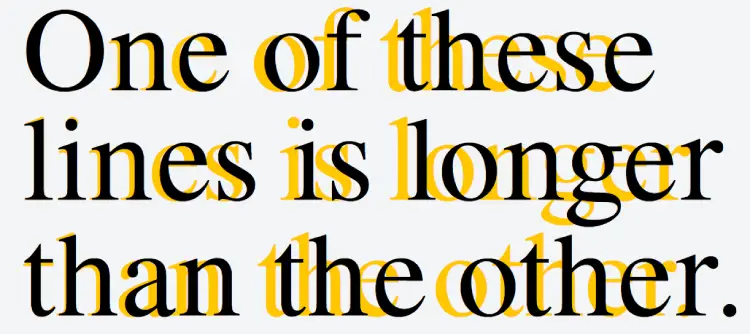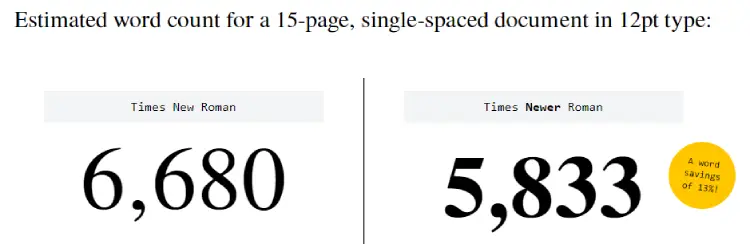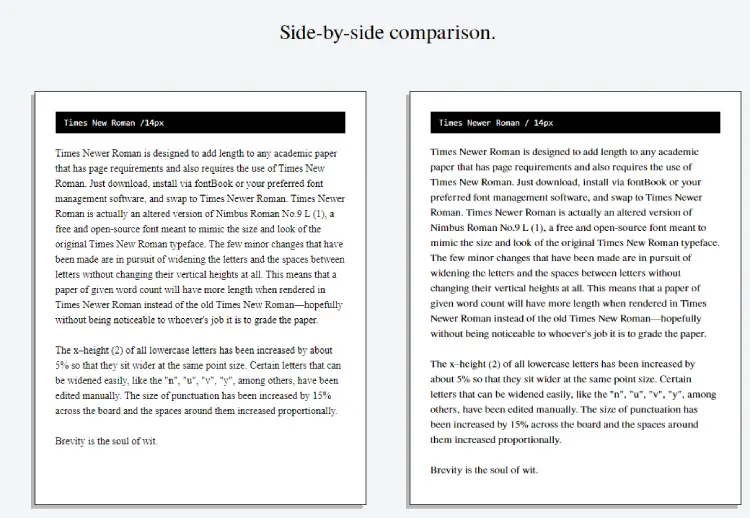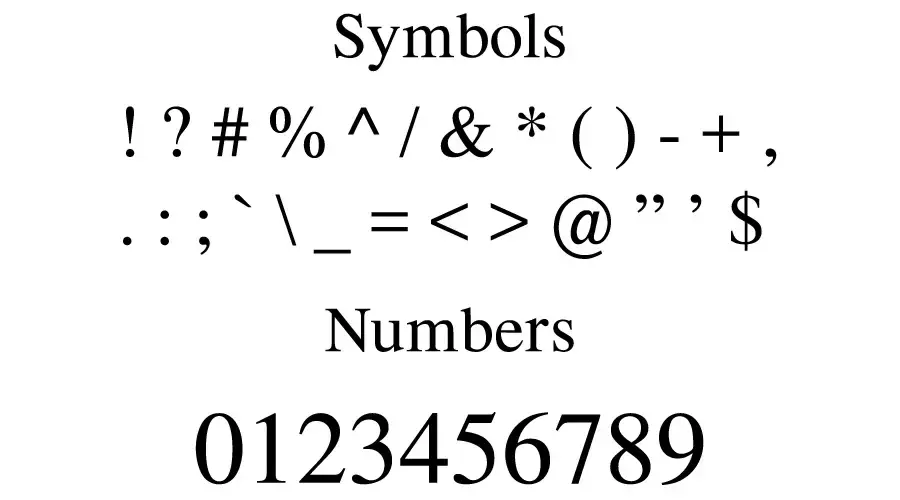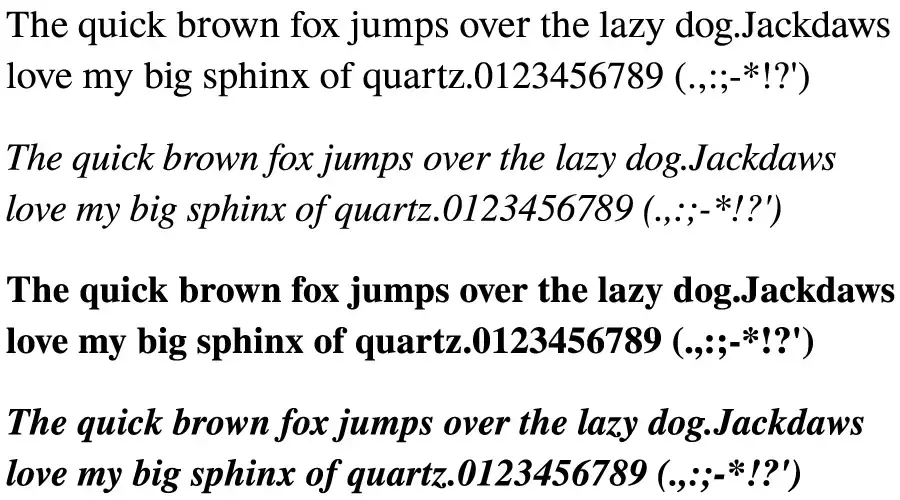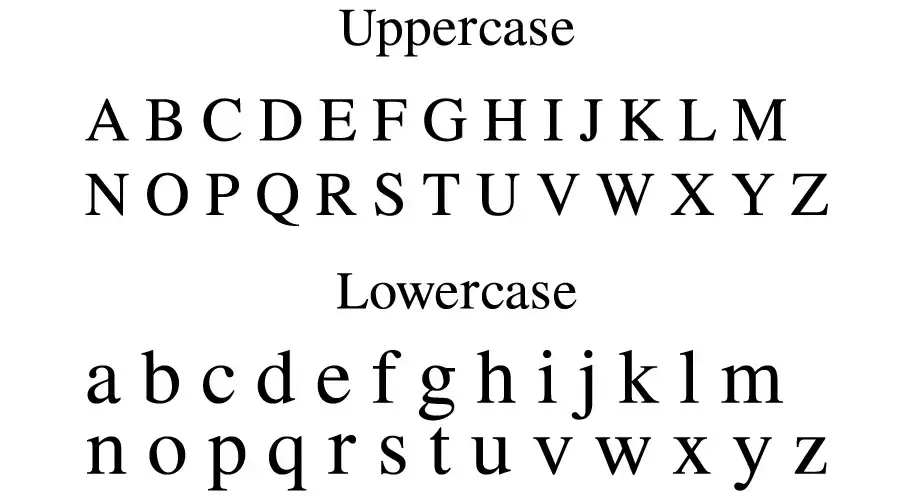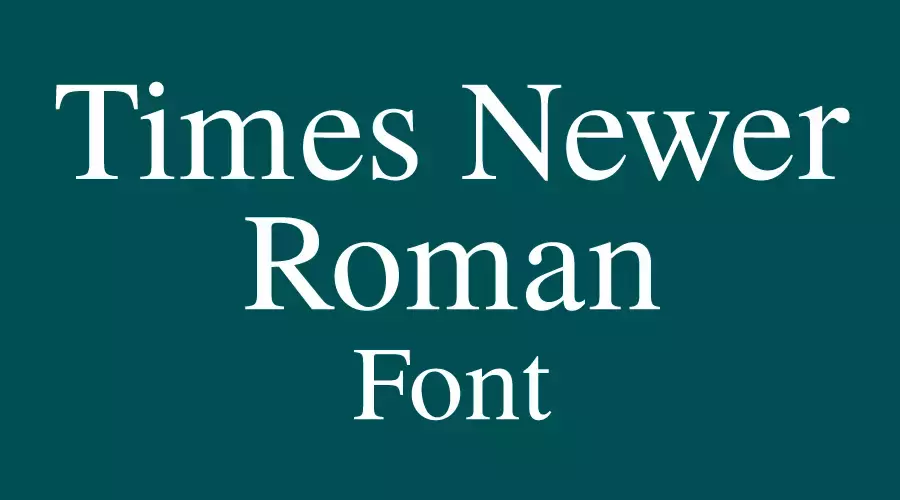
Times Newer Roman is a free and open-source font created by MSCHF that mimics the size and look of the original Times New Roman typeface. The font is designed to be 5-10% wider than the original font, making it easier on the eye and allowing more characters to be fitted onto a page. The site was created as a prank to assist students in completing long page requirements. It also has slightly altered lowercase letters, which makes it harder to detect by teachers.
Times New Roman is a classic serif font created in 1931 for The Times newspaper. It is widely used in academic and professional writing.
Times Newer Roman is an altered version of Nimbus Roman No. 9 L, a free font that mimics the Times New Roman font. It has wider characters and spaces but the same vertical heights.
| Font Family Name | Times Newer Roman |
| Style | Serif |
| Designer | MSCHF |
| Publishing Year | 2018 |